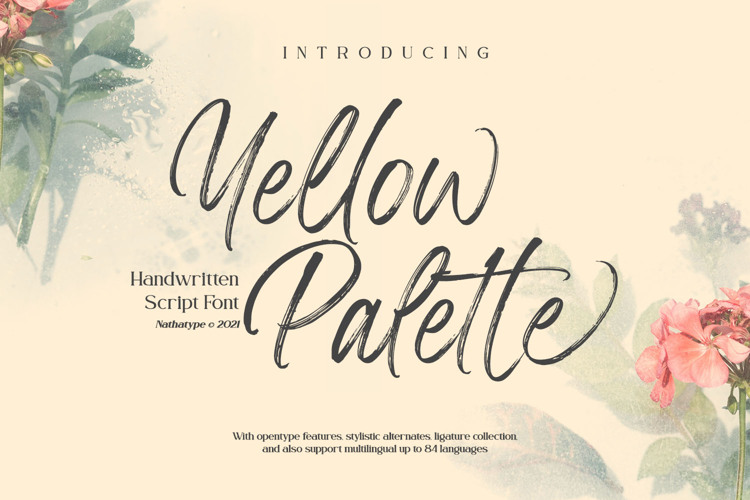
Yellow Palette Font
Product Description :
Yellow Palette is a gorgeous font designed with a modern vibe. This handwritten font is perfect for anything adventurous and direct. Every stroke and curve was created to entice happiness and elegance. This is a real head-turner for your presentations, designs, brandings, quotes, invitations, website illustrations, and so on.
Features include:
• Ligatures
• Stylistic Sets
• Multilingual Supports
• PUA Encoded
• Numerals and Punctuations